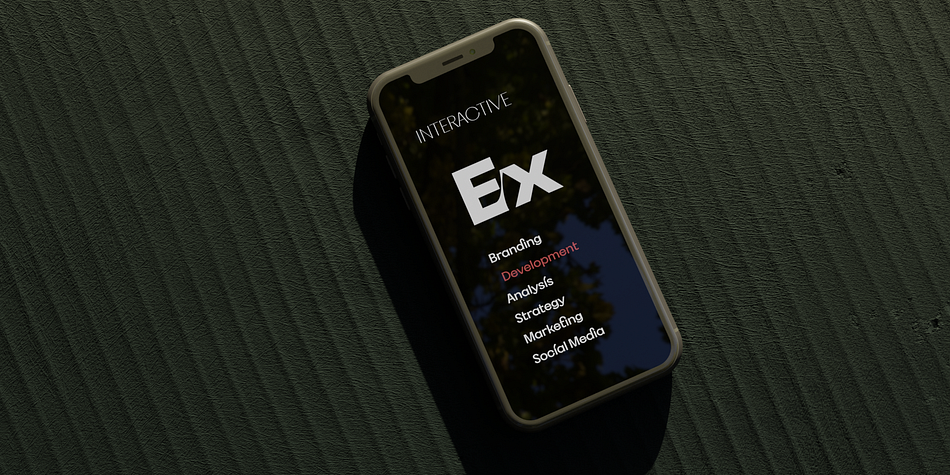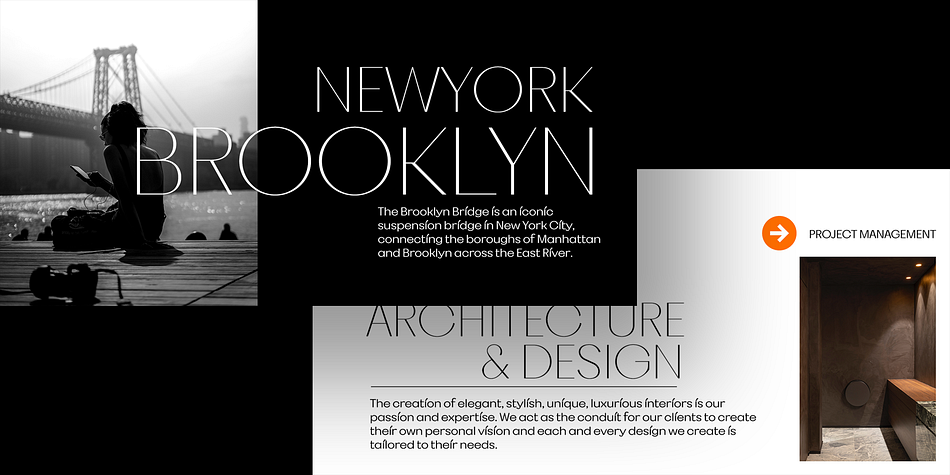
Cinedics
Cinedics is a sans serif font family. This typeface has fourteen styles and was published by Brenners Template.
Introducing the Cinedics font family.
It is an elegant display font family based on Geometric Sans with added mathematical contrast. In lighter styles, the contrast is increased, and as it gets heavier, it is designed to become more plain. We’ve sensually improved on the plain and boring experiences found in traditional Geometric Sans fonts. And, various glyphs have been added, including musical symbols, square capital letters, and Cyrillic language support, and ligatures have been added to improve completeness. It features a unique look and feel, with the diacritic dot of the lowercase [i] and the hook of the lowercase [f] also designed with tall, long terminal strokes.
It will be the best solution for elegant and rhythmic headlines and strong and impactful logo designs.
**Features**
- 693 Glyphs
- Latin (Western, Central, South Eastern European/South American/Oceanian/Sami/Esperanto)
- Basic Cyrillic (Ukrainian)
- Oldstyle figures
- Case-sensitive forms
- Fractions
- Musical Symbols
- Stylistic Set(01~04)
- Standard Ligatures : di, fe, ff, fli, fi, fl, li, ti
- Discretionary Ligatures : Be, Ci, Cr, Di, Ei, Ex, Fe, Fi, Gi, Gr, Hi, Ji, Ki, Li, Mi, Ni, Oi, Ri, Si, Vi, Zi